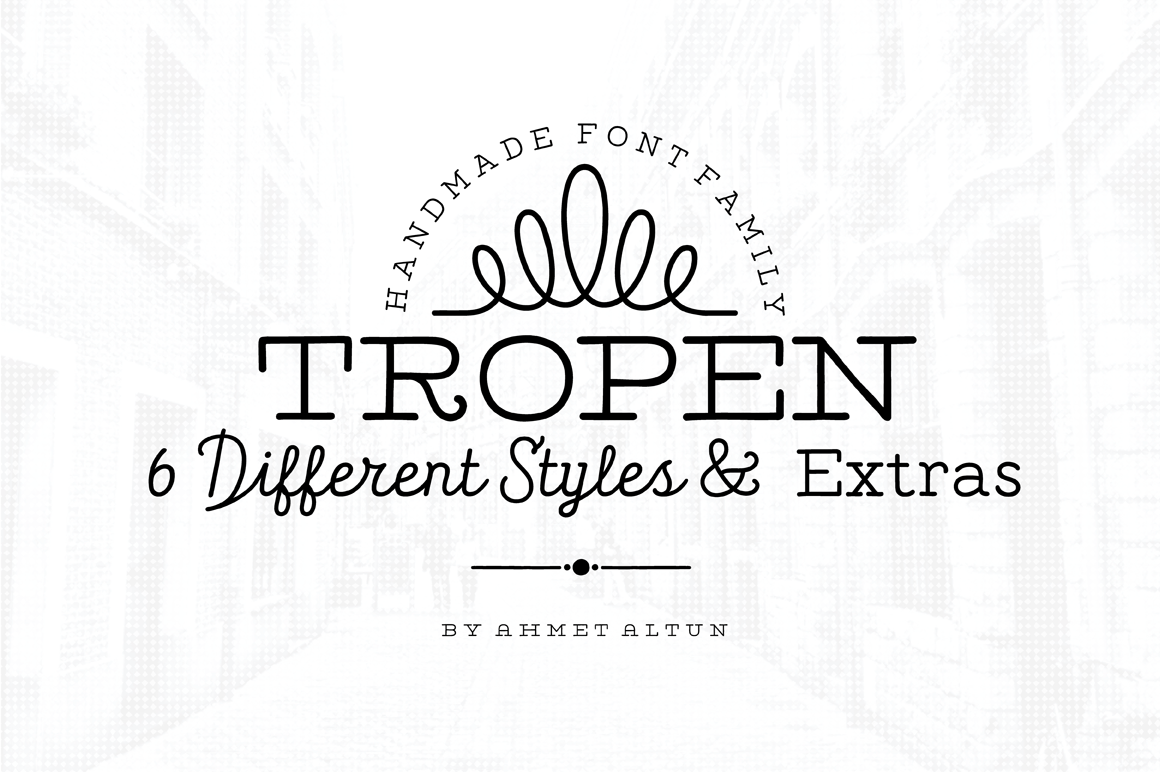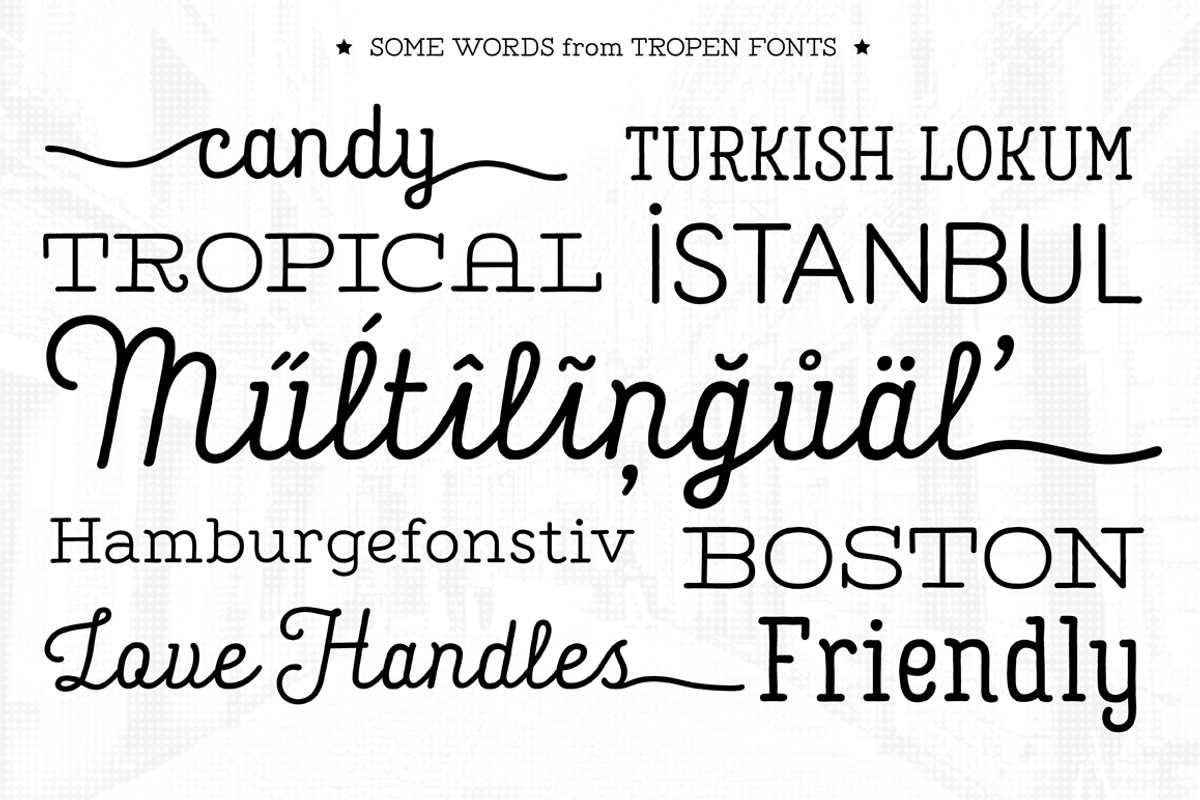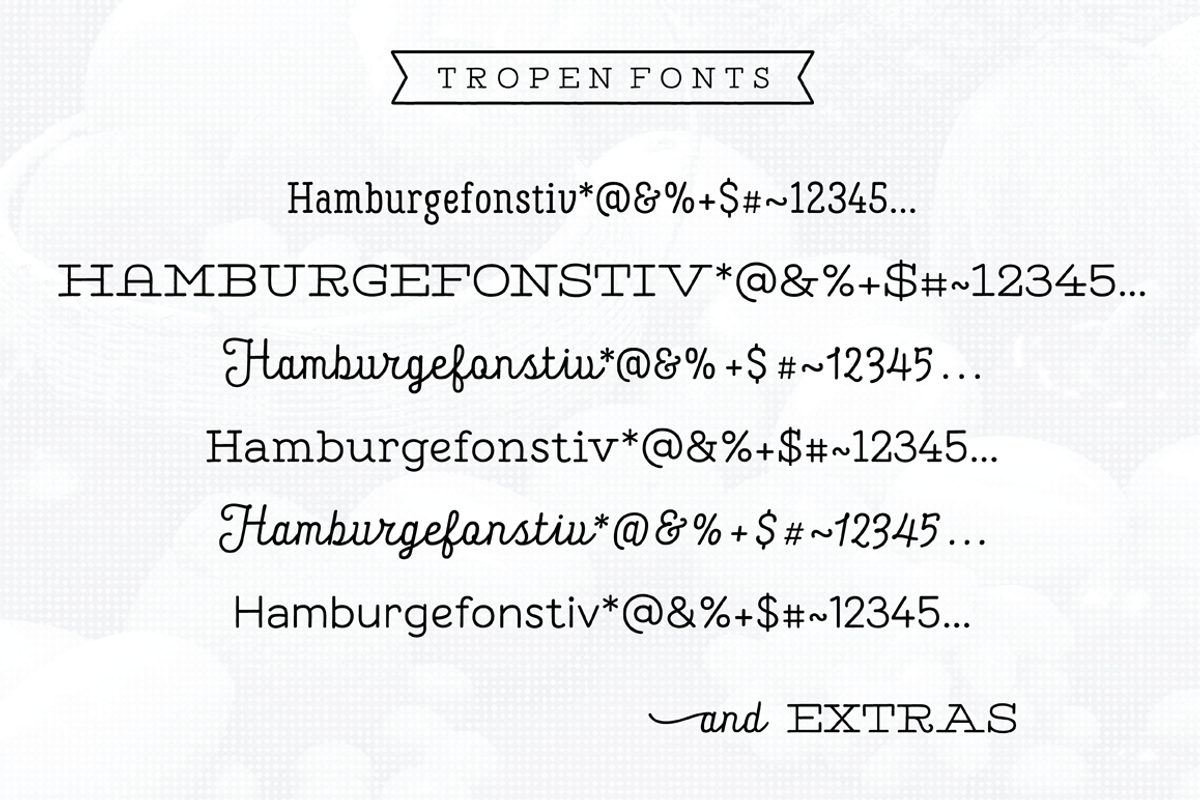
Tropen Font Family
Tropen Font Family comes in one weight with six different types of styles but compatible at the same time with each other. All fonts are hand-maden. It can be accessed to the extras with the standard keyboard codes which makes the use of font files very practical and easy. Tropen Font Family was designed carefully to create elegant works. It would be a perfect choice to design posters, affiches, logos, t-shirt and magazine prints, eye-pleasing typographic designs and more